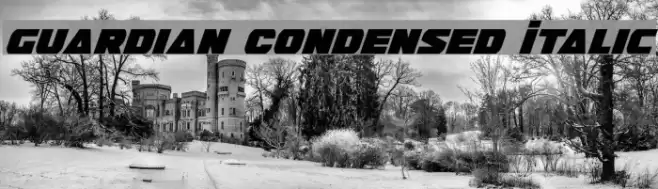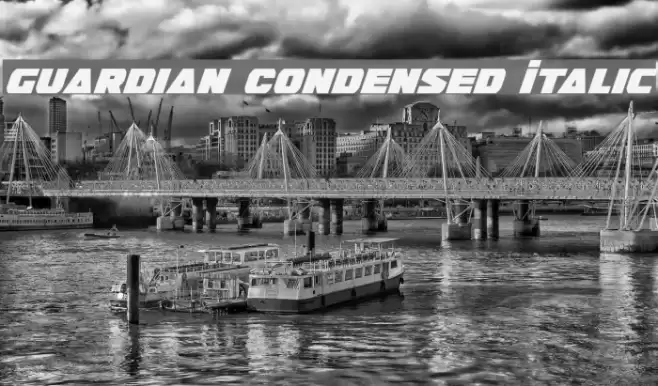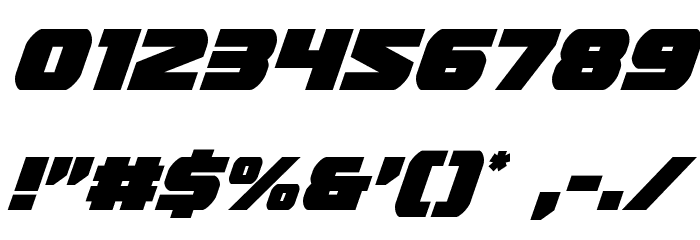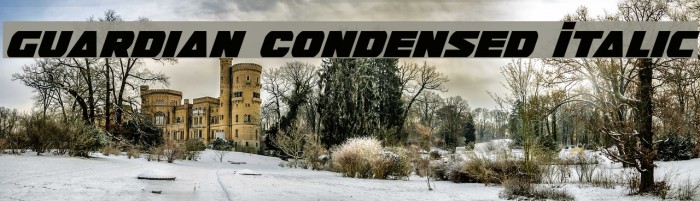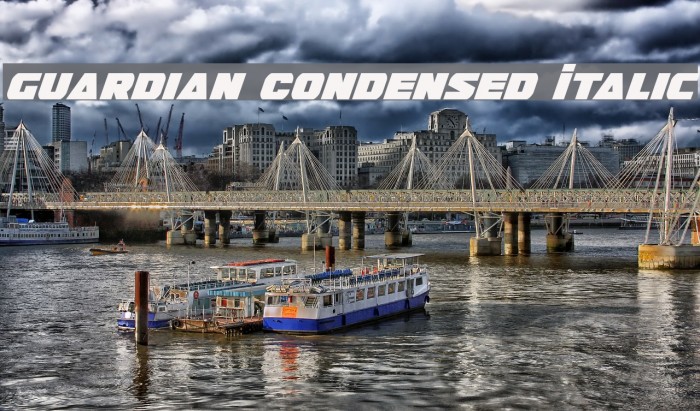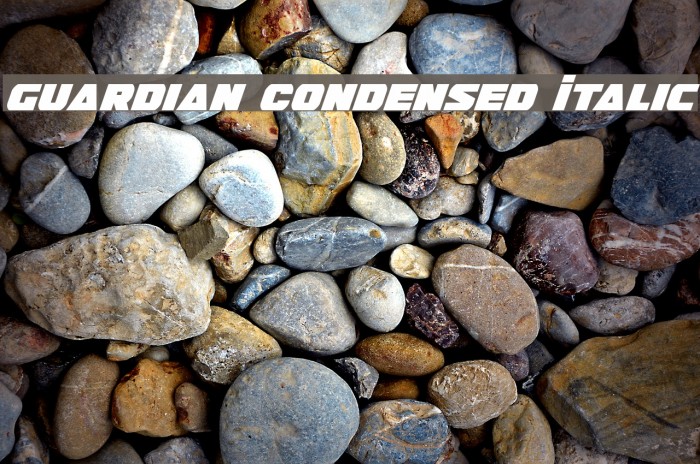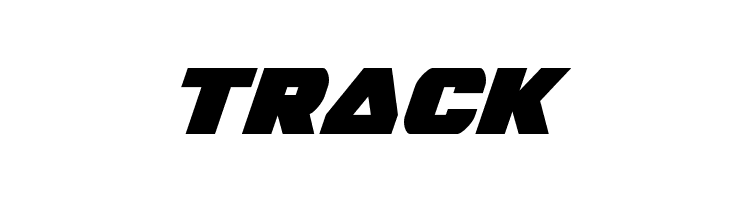
Guardian Condensed Italic Font
Guardian Condensed Italic Description
This typeface exhibits a bold and dynamic style with a strong italic slant, giving it a sense of motion and urgency. The characters are condensed, enhancing the compact and impactful appearance. The strokes are thick and consistent, contributing to a high contrast between the characters and the background. The angular cuts and sharp edges provide a modern and aggressive feel, making it suitable for attention-grabbing designs. The uppercase and lowercase letters maintain a uniform style, ensuring readability while preserving the font's distinctive character.
Bold, italic, and condensed with a modern, dynamic style from Sci-fi fonts.
- Proposed Projects: Ideal for sports branding, action movie posters, dynamic advertisements, and modern logo designs.
- Character Spacing: Tight